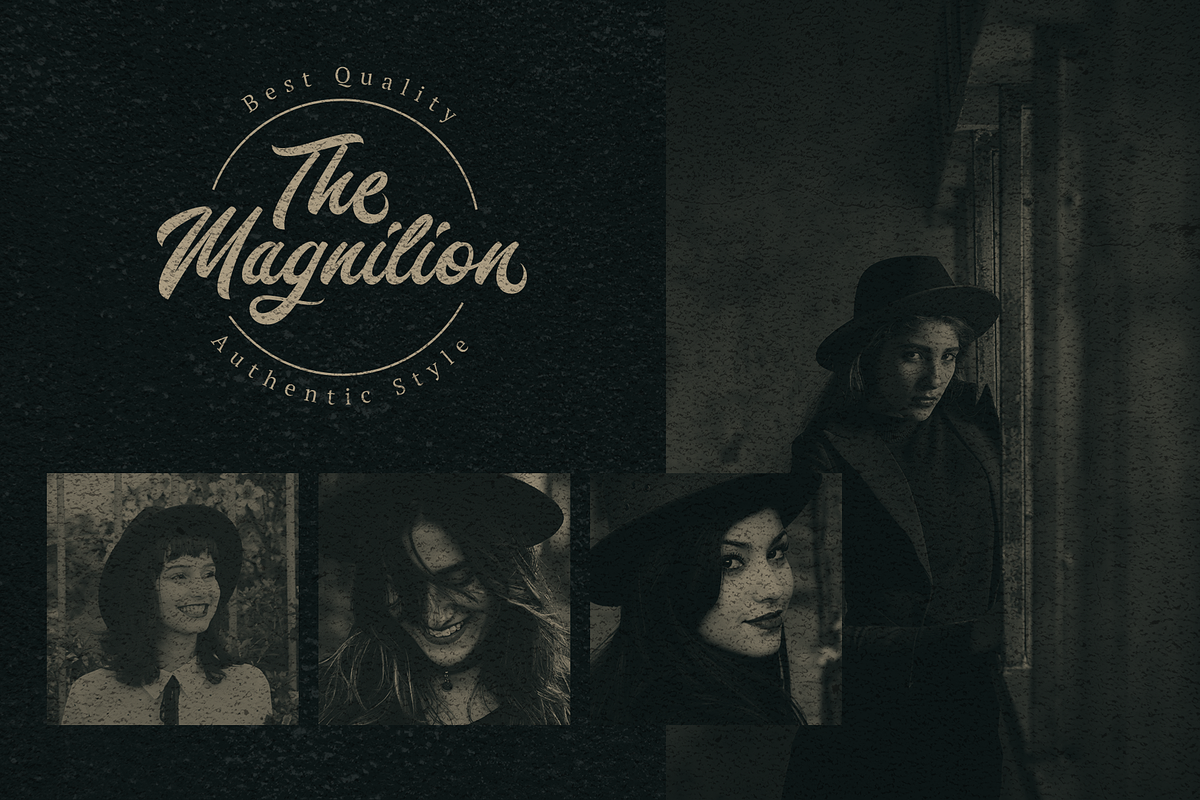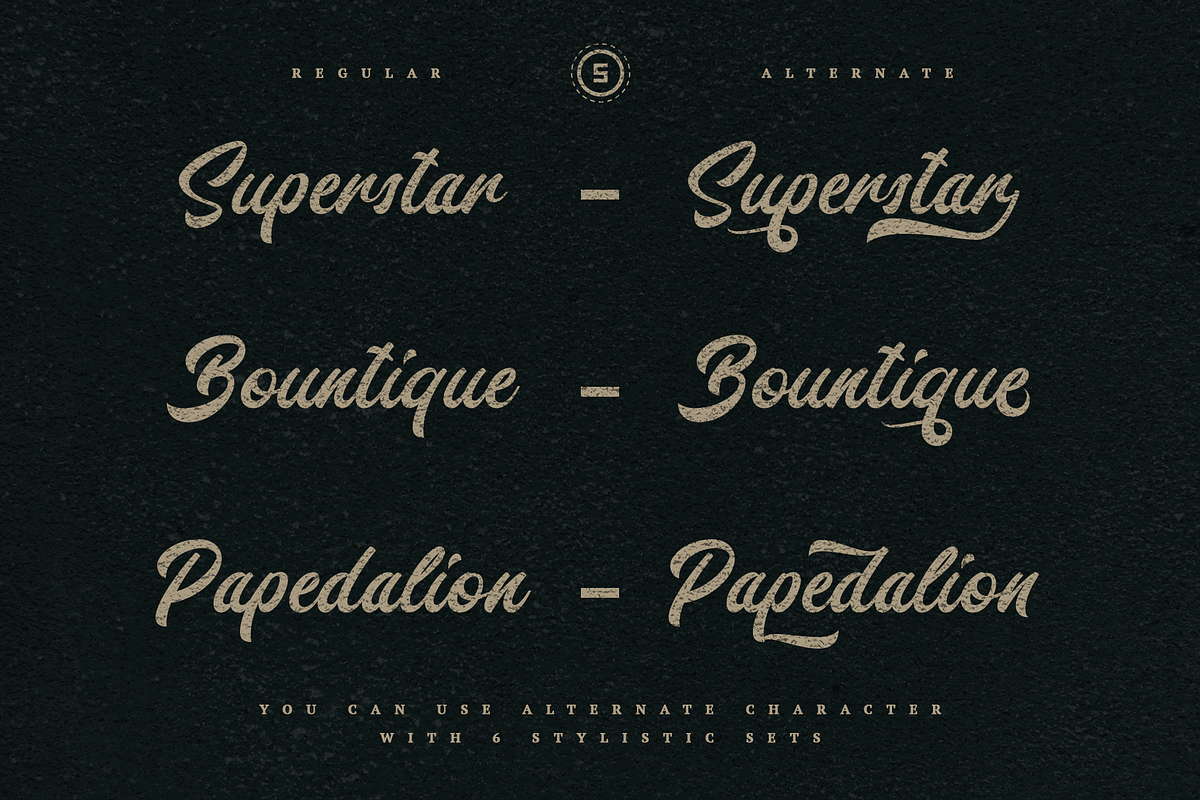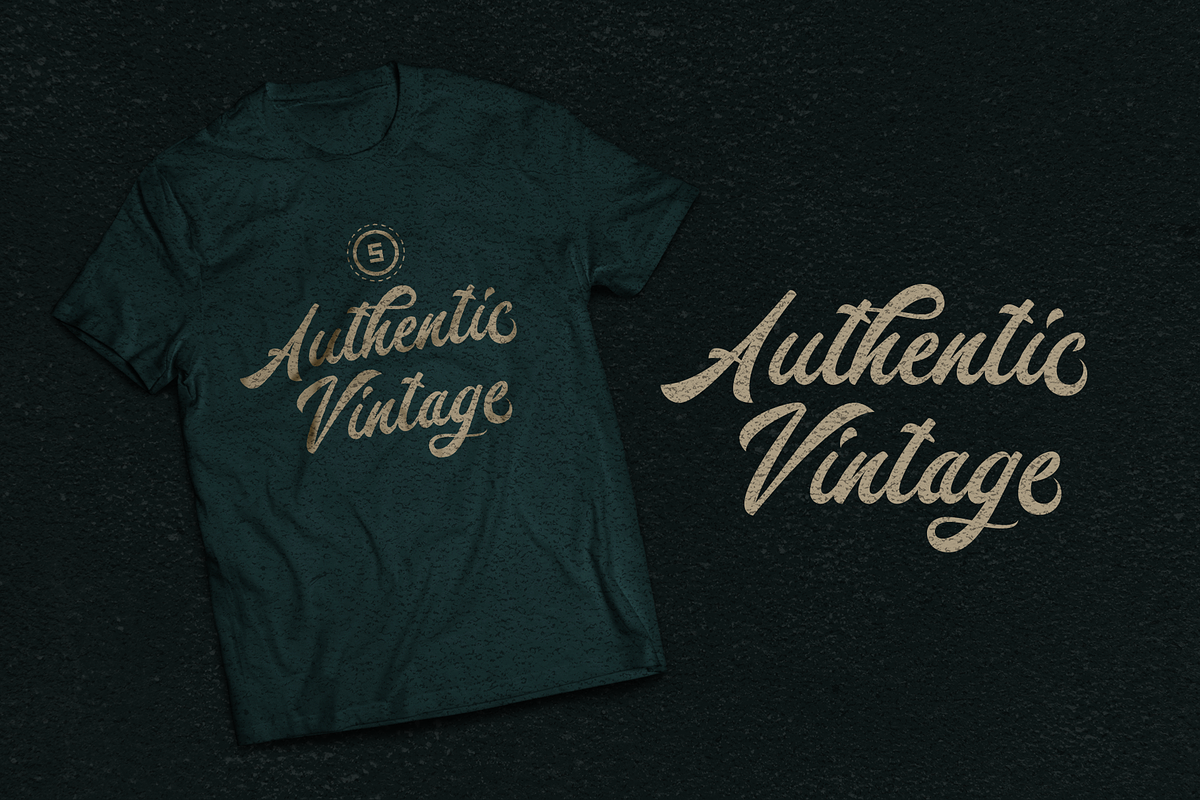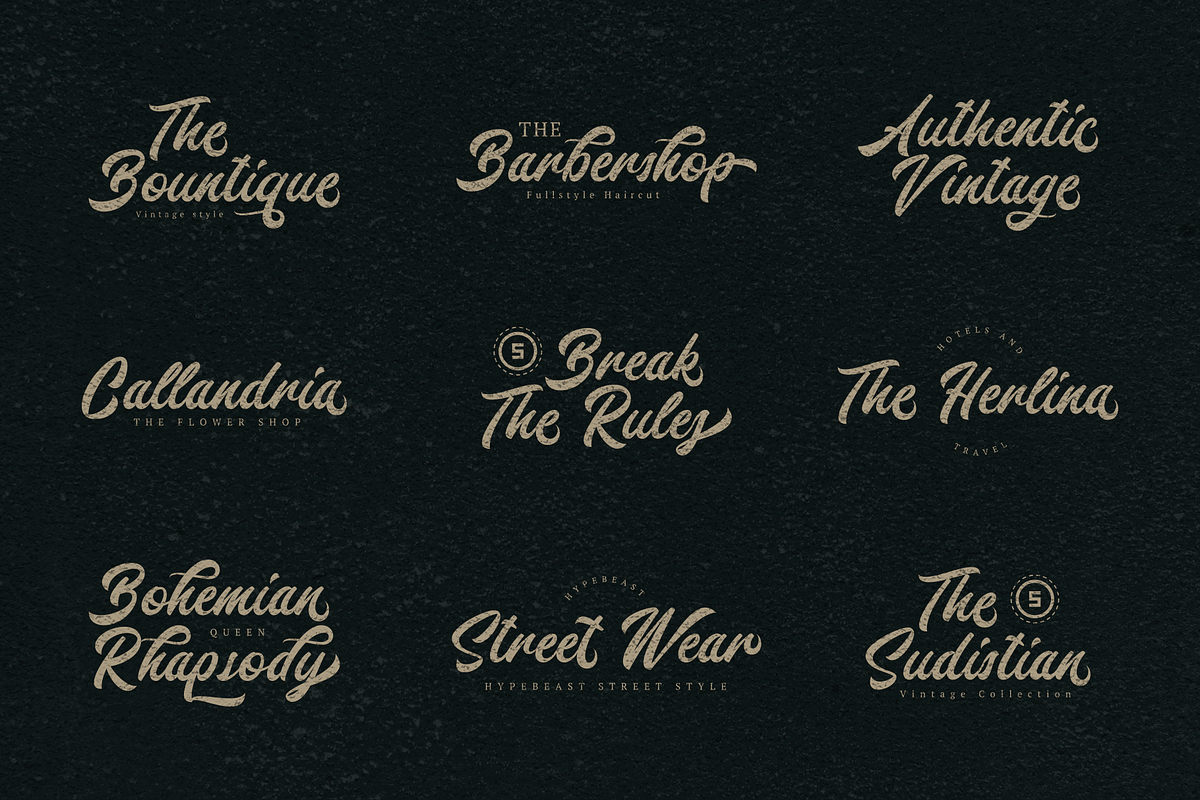
Salmah Script
Introducing Salmah Script is a Script font with typical vintage style, This font always gives an extraordinary touch for you,
Salmah Script font is to use for any kind of design such as branding projects, logos, social media posts, advertisements, product packaging, product designs, labels, poster, photography, t-shirt, watermarks, stationery, and any projects.
- ligature
- 6 Stylistic set